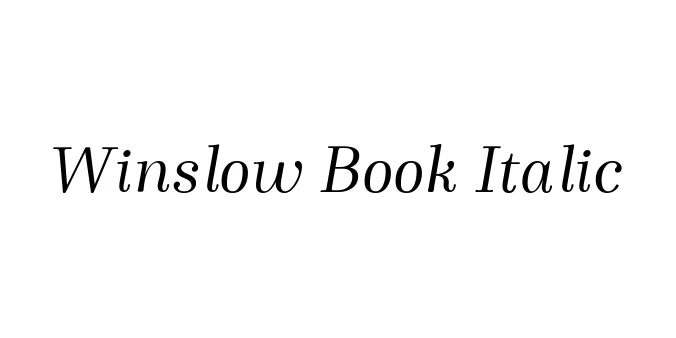
Winslow Book Italic
Designed by Kimmy Kirkwood
Winslow Book Italic is a sophisticated modern serif typeface designed by Kimmy Kirkwood of Kimmy Design. Part of the expansive Winslow superfamily, this font is celebrated for its elegant high contrast and refined aesthetic. The italic variant introduces a graceful slant with calligraphic undertones that improve the visual flow of text, making it a premier choice for high-end editorial layouts and luxury branding initiatives.
Drawing inspiration from early 20th-century fashion and boutique aesthetics, it features delicate hairlines and robust vertical strokes. The Book weight is meticulously crafted for legibility in body text, while the italic flourishes provide the necessary emphasis and personality for literary works, wedding invitations, and upscale packaging designs.
Winslow Book Italic Best Uses
Perfect for magazine body text and literary headers.
Ideal for luxury logos and fashion brand identities.
Great for high-end wedding stationery and formal events.
Suitable for boutique product labels and premium cosmetics.